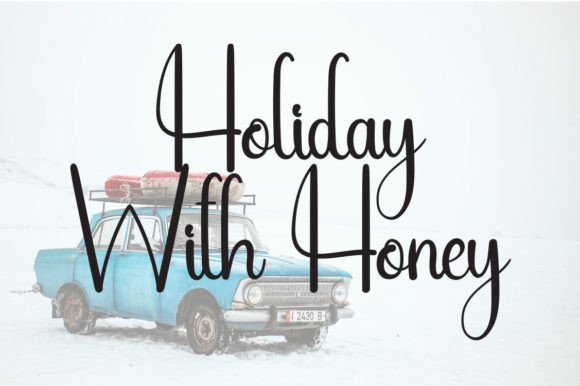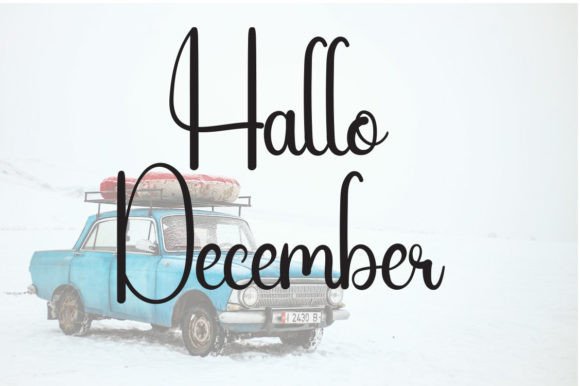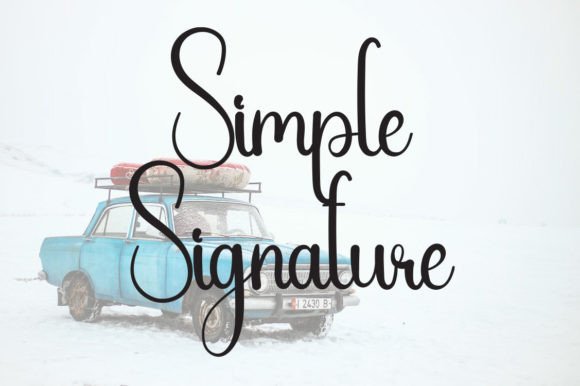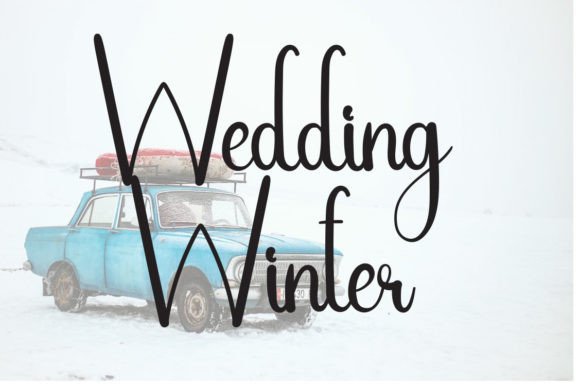
Winter Holiday Font
Add Simple Elegance with Winter Holiday Font
The Winter Holiday font is a simple handwritten script designed to bring a natural and effortless feel to your creative projects. Its versatile style makes it ideal for a wide range of applications, from greeting cards and invitations to headlines and social media graphics. Winter Holiday adds warmth and simplicity that enhances your design’s charm.
Perfect for Greeting Cards, Headlines, and More
The Winter Holiday font excels across various design uses including holiday cards, seasonal branding, blog headlines, posters, and personal projects. Its clean strokes and friendly style make your work approachable and memorable.
A Handwritten Script with Natural Style
Each character in the Winter Holiday font is crafted with smooth, casual strokes that mimic authentic handwriting. This font balances simplicity with readability, making it perfect for both decorative and functional text elements.
Despite its simplicity, the Winter Holidayfont maintains excellent readability at various sizes. Whether used for large headlines or smaller details, it balances natural charm with clarity, making it a versatile choice for many creative projects.
Make Your Designs Shine with Natural Handwriting